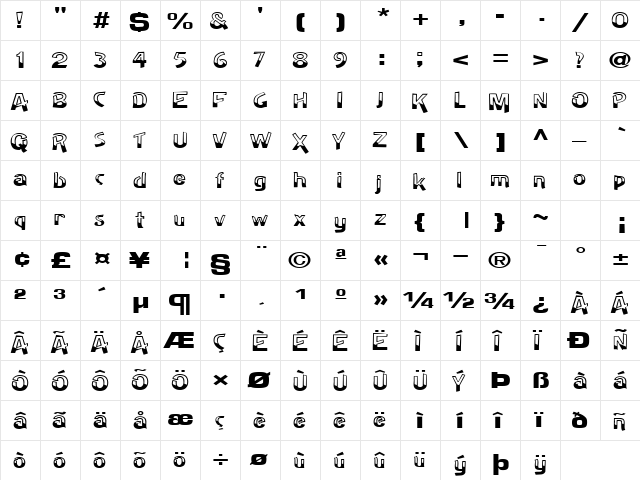
BadhHabit71 Regular
Design Context for BadhHabit71 Typeface
BadhHabit71 is a composed and adaptable typeface that performs quietly and consistently across a wide range of design contexts.